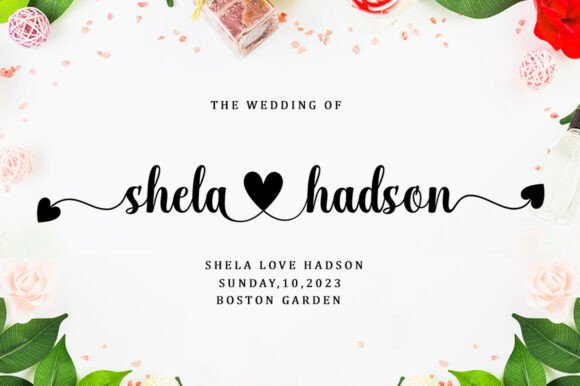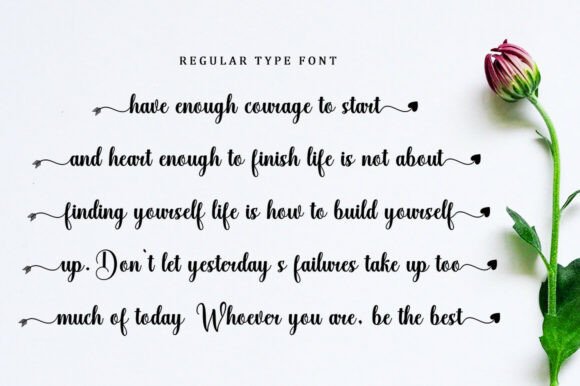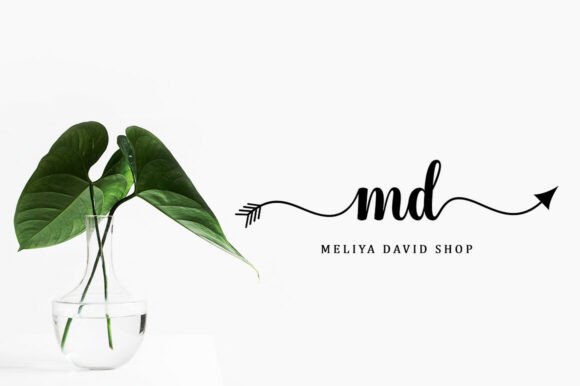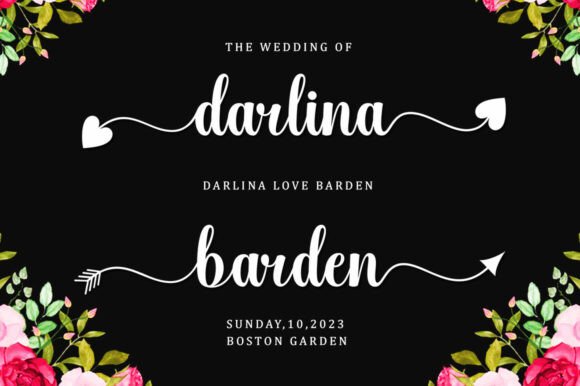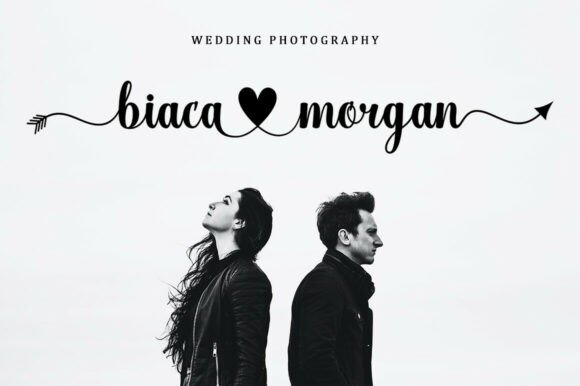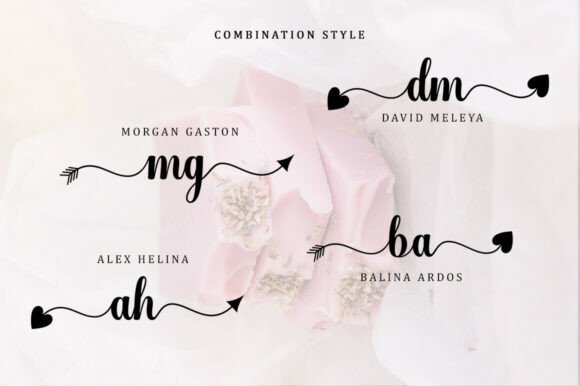
Love at First Sight: The Abella Bosley Font
Do you remember the moment when you fell in love with a font? For many designers, that moment is when they first lay eyes on Abella Bosley Font. This beautiful script font is a dream come true for anyone who’s ever wanted to add a touch of romance to their design projects.
Perfect for branding, wedding invitations, and other romantic projects, Abella Bosley Font is a love-centered look that’s sure to capture hearts. Whether you’re designing logos, labels, packaging designs, blog titles, posters, wedding designs, or social media posts, this font is the perfect addition to your toolkit. With its elegant and whimsical feel, Abella Bosley Font is a valuable asset for any designer looking to add a touch of personality to their work.
- Unique Characteristics: Hand-drawn design with a mix of modern and vintage elements, featuring intricate details and ornate flourishes
- Font Style: Script, Calligraphy, Display
Abella Bosley Font Review
Overall, I’m really impressed with the Abella Bosley font. It’s a beautiful, elegant script font that’s perfect for adding a touch of sophistication to your designs. ✨ The flowing lines and organic feel make it ideal for headings and titles.
- ✨ Elegant and refined look: Abella Bosley is a great choice for high-end branding and luxury designs.
- ✨ Versatile: It works well in both print and digital designs.
- ✨ Easy to read: The font is well-designed for readability, making it perfect for body text.
However, there are some limitations:
- ⚠️ Limited character set: The font only comes in uppercase and lowercase letters, which may limit its use in certain situations.
- ⚠️ Not suitable for small text: Due to its elegant design, Abella Bosley may not be the best choice for small text sizes.
Overall, I’d give Abella Bosley a solid 4 out of 5 stars. It’s a beautiful font that’s perfect for adding a touch of elegance to your designs. With its versatility and refined look, it’s definitely worth considering for your next project.
Abella Bosley is a script font ideal for creative and elegant designs, such as:
– Wedding invitations
– Brand logos
– Quotes and graphics
– Personalized stationery
Tips for Getting the Most Out of Abella Bosley
For the best results, pair Abella Bosley with simple backgrounds and bold colors to create a striking contrast. Experiment with different font sizes and styles to achieve the desired effect.
Alternatives to Abella Bosley Font for Designers
Great Vibes Font is a modern, elegant script font that is perfect for creating a sophisticated and stylish look. It is ideal for use in branding, advertising, and editorial design. Great Vibes Font is more refined and polished compared to Abella Bosley Font, making it a great choice for formal and professional projects.
Comparison: Great Vibes Font has a more refined and polished feel compared to Abella Bosley Font, making it a better choice for formal and professional projects. However, Abella Bosley Font has a more playful and casual feel that can be perfect for creative and artistic projects.
Carolyna Pro Font is a modern, elegant script font that is perfect for creating a luxurious and sophisticated look. It is ideal for use in branding, advertising, and editorial design. Carolyna Pro Font is similar to Abella Bosley Font in terms of its elegant and refined feel, but it has a more polished and sophisticated look.
Comparison: Carolyna Pro Font has a more polished and sophisticated look compared to Abella Bosley Font, making it a great choice for high-end and luxury projects. However, Abella Bosley Font has a more playful and casual feel that can be perfect for creative and artistic projects.